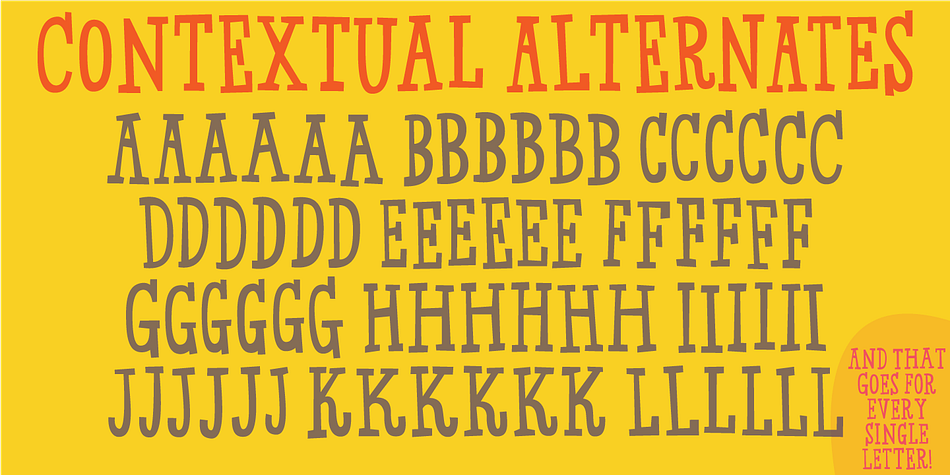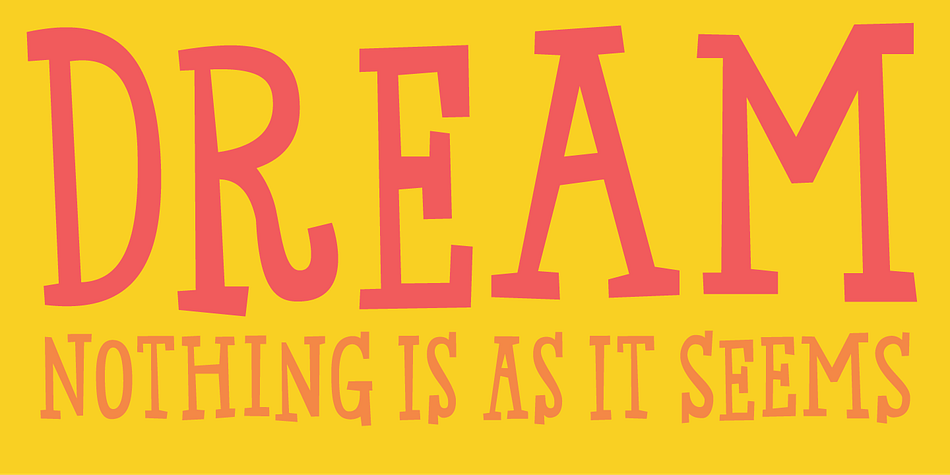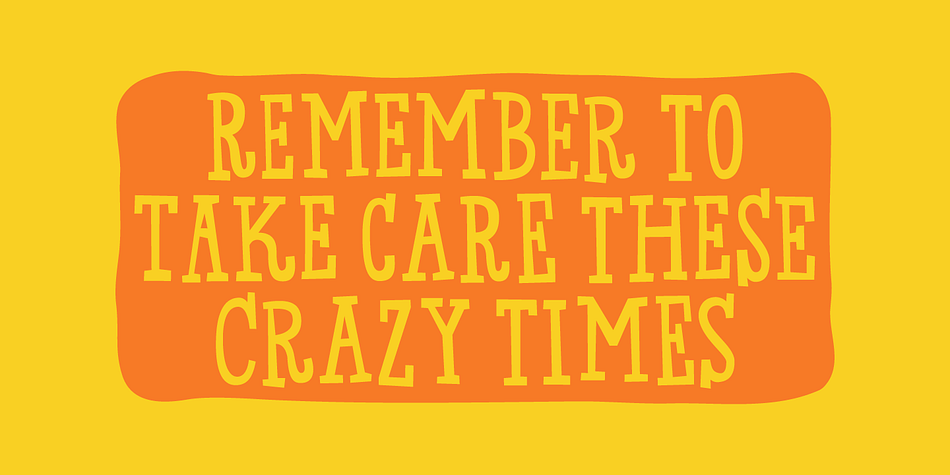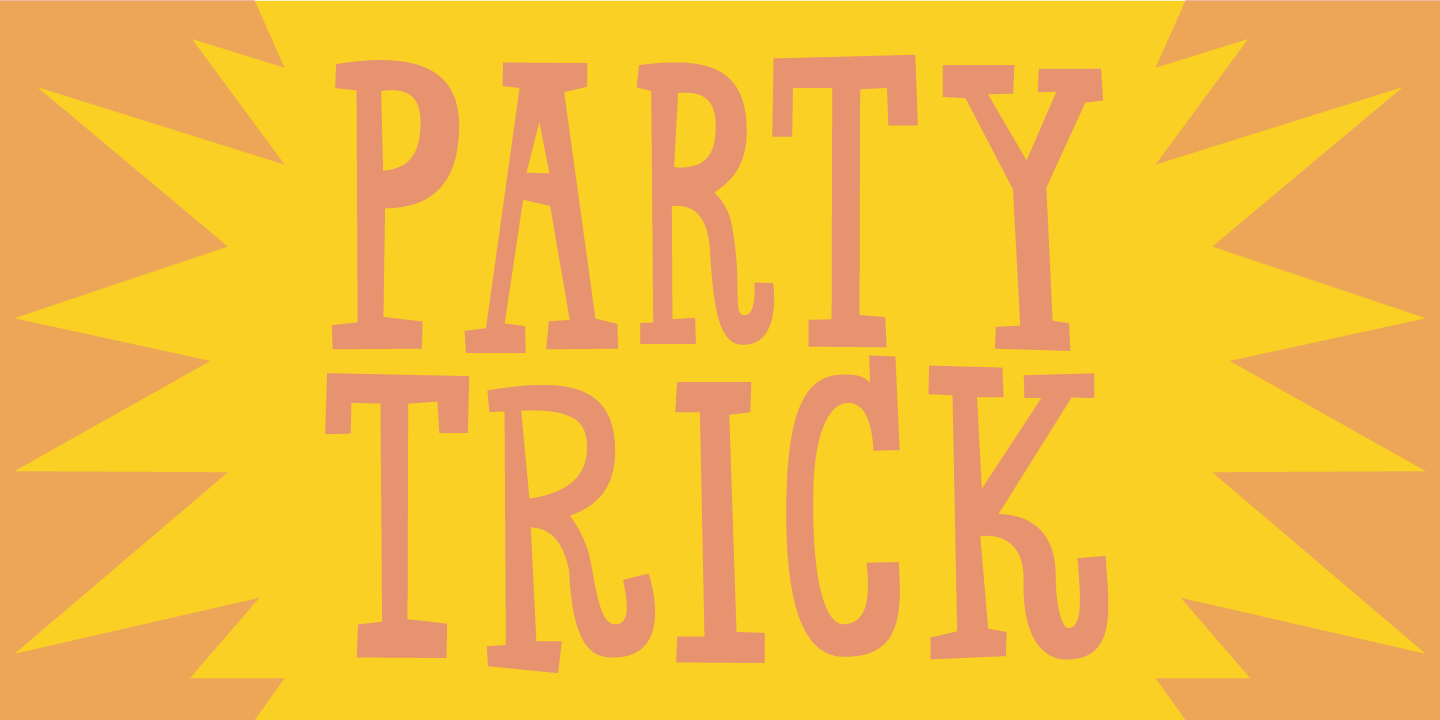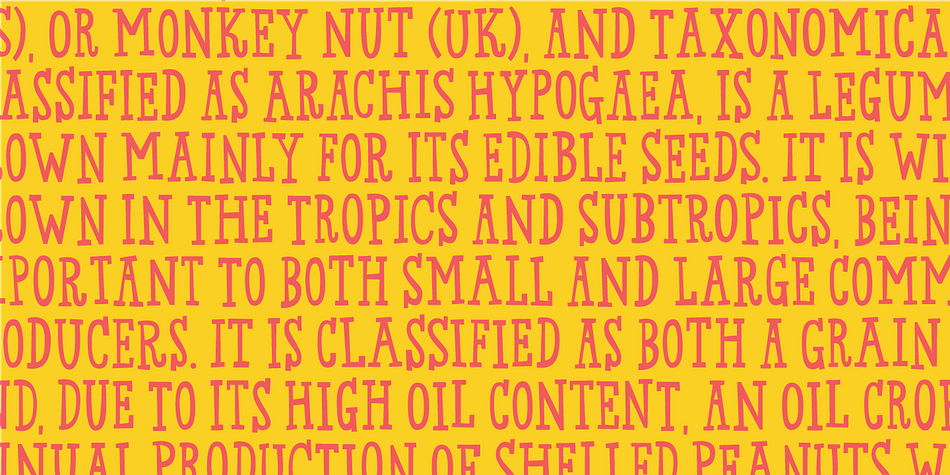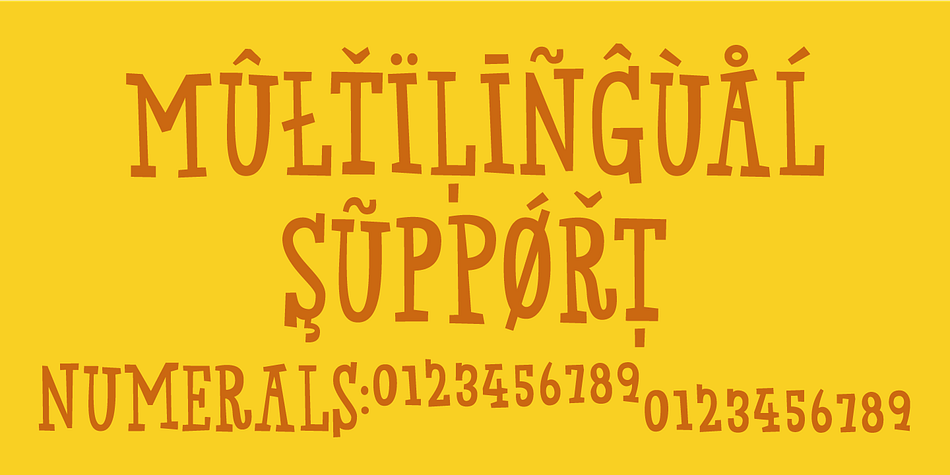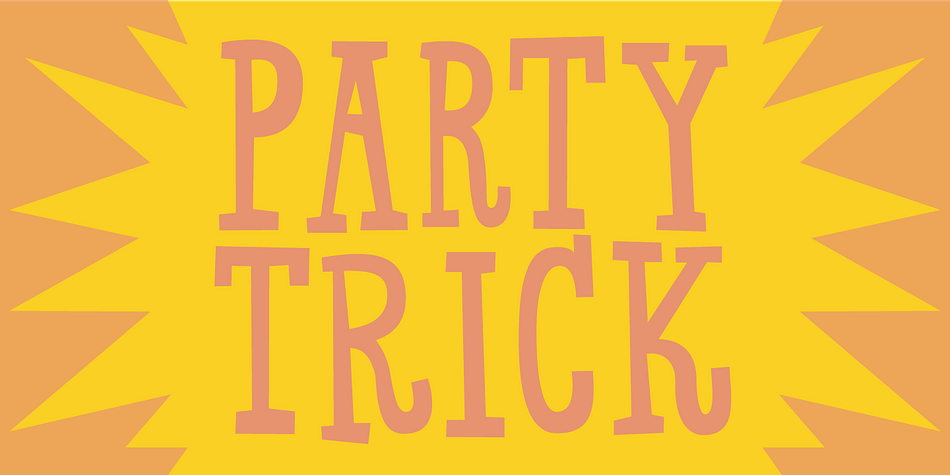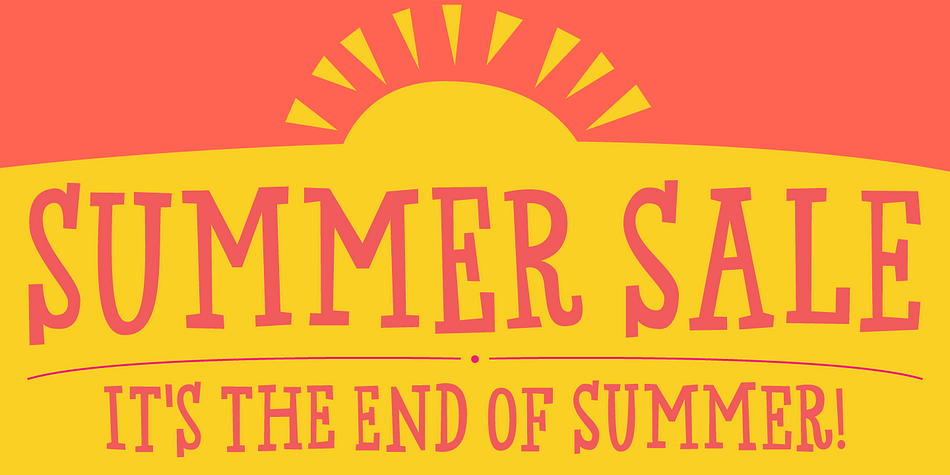
Designed by Jakob Fischer, Party Trick is a hand display font family. This typeface has two styles and was published by Pizzadude.dk.
Party Trick is loosely based on the capital letters of a classic typewriter, but I have added a bit sugar and spice to the letters - making them more funky and loose. Another great thing is the contextual alternates, which gives you 6 different versions of each letter - and they automatically changes as you type!